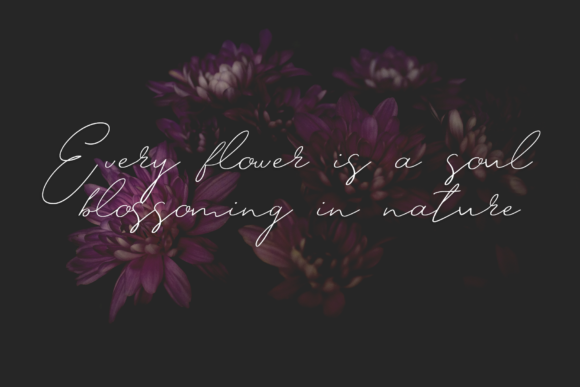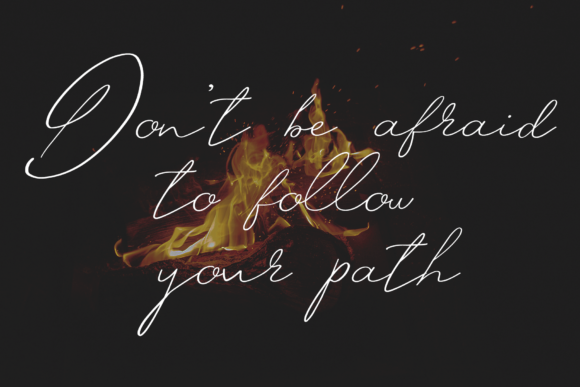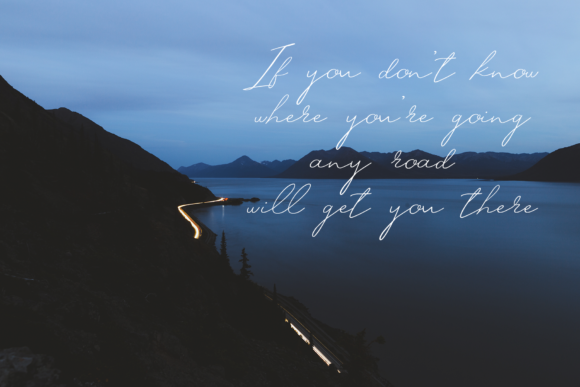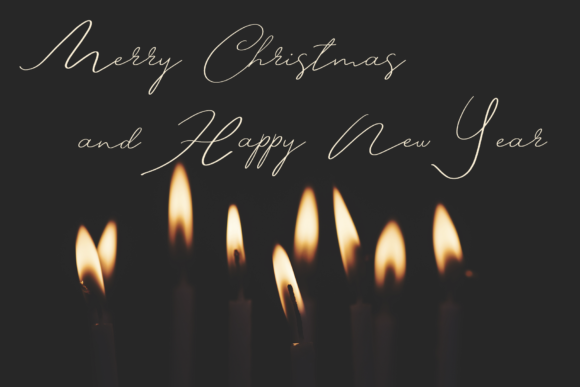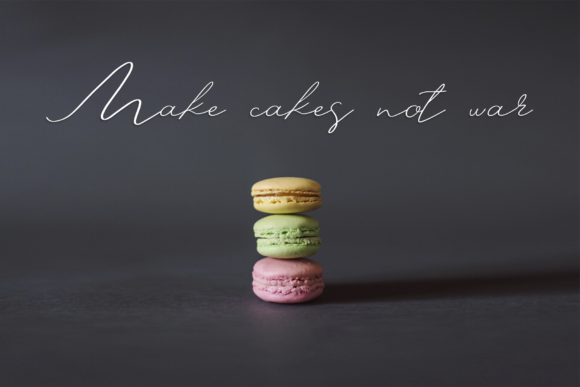
Cremme Font
About Cremme Font
The Cremme is a thin script font inspired by handwritten postcards. It’s offering round stroke endings and has a flowing shape.